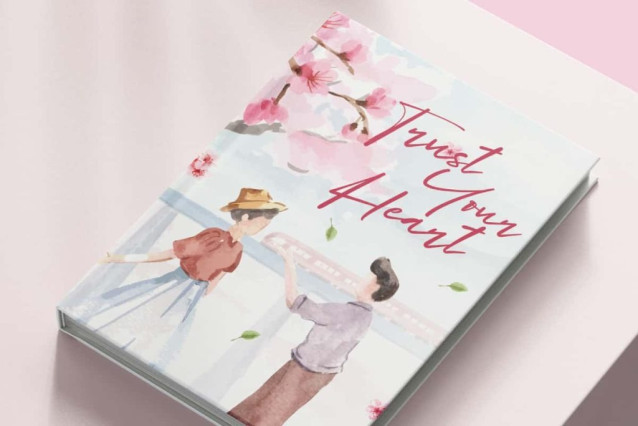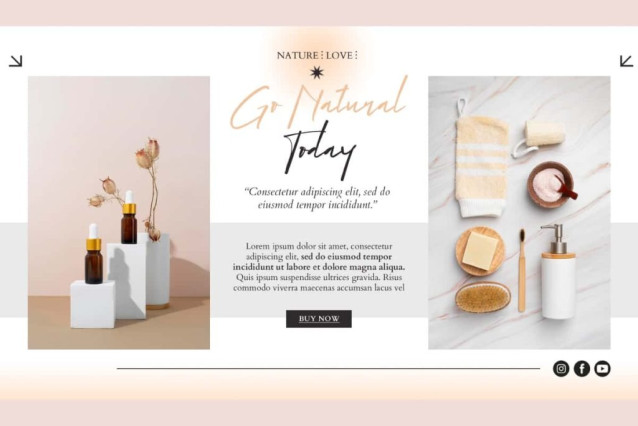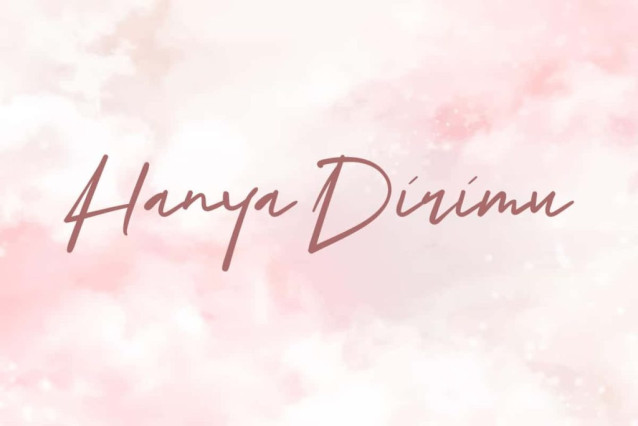
Hanya Dirimu Font
Hanya Dirimu Font is a charming handwritten font that is feminine. With smooth edges and beautiful curves making this font stunning and easy to read at the same time. Perfect for any creative design, such as blogs, brand logo, bussiness card, card design, cover, headers, label tag, printing, product packaging, quotes, sticker, template, title, website, and more.
Hanya Dirimu Font includes a complete set of Basic Uppercase and Lowercase Characters, Numbers, Punctuation Marks, and Symbols. This font takes you into a world of timeless elegance and individuality with the charm of a charming handwritten font. Can be used in advertising, beauty clinic, boutique, event organizer, fashion, graphic design, skincare, wedding, writer, etc.